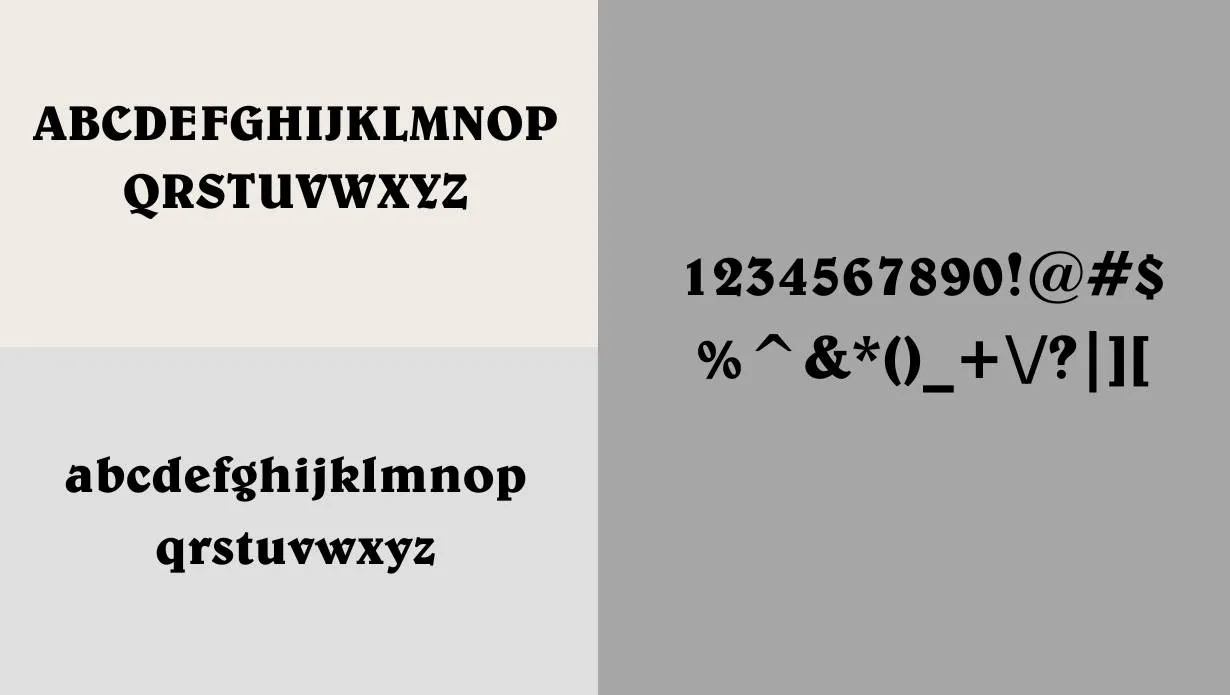
The Belwe BD BT Bold Font is a powerhouse in typography, perfect for projects that need a bold and attention-grabbing statement. Its robust characters make it ideal for headings or banners, ensuring a strong and impactful presence.
| Designer | Georg Belwe |